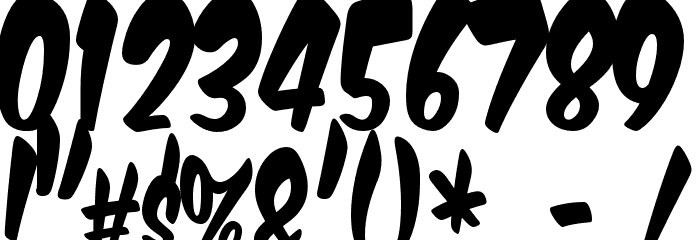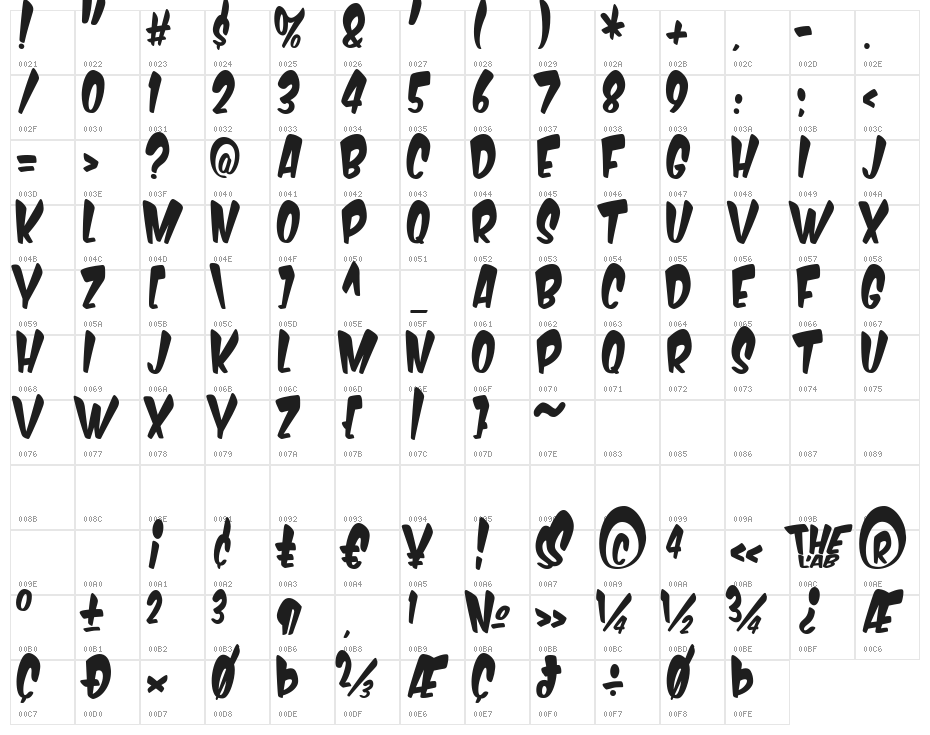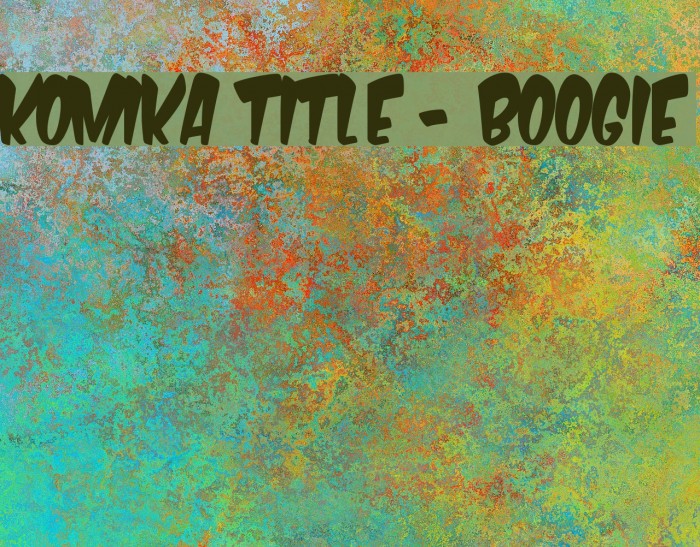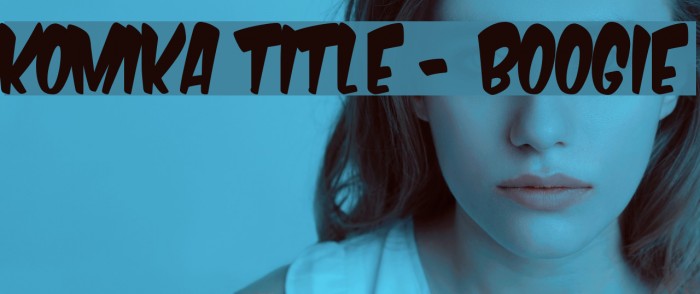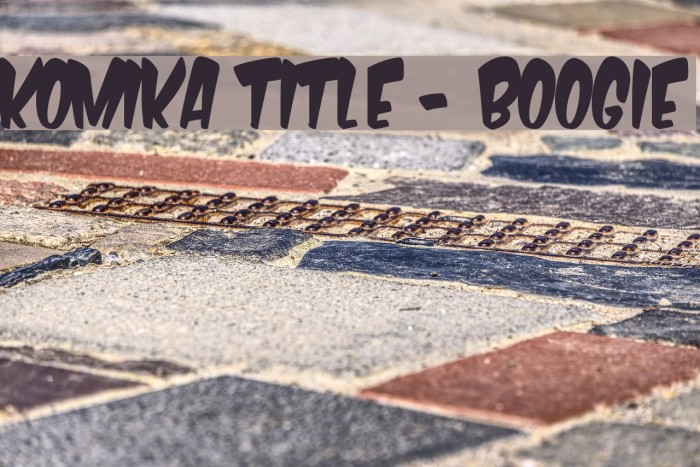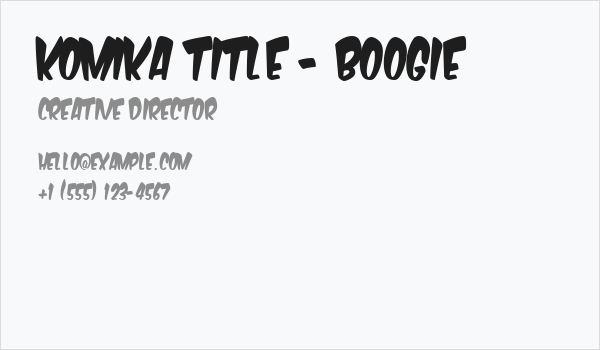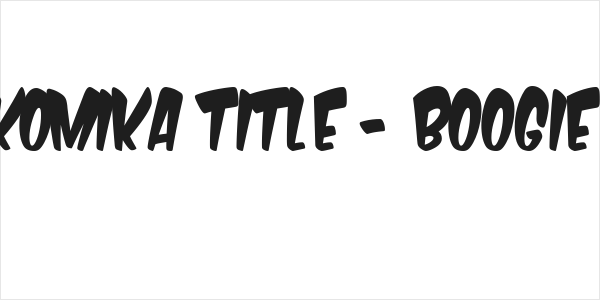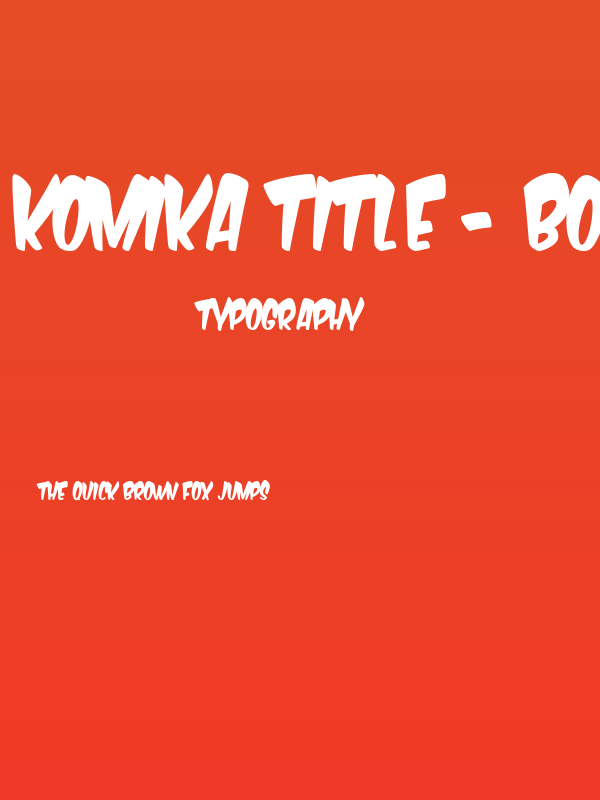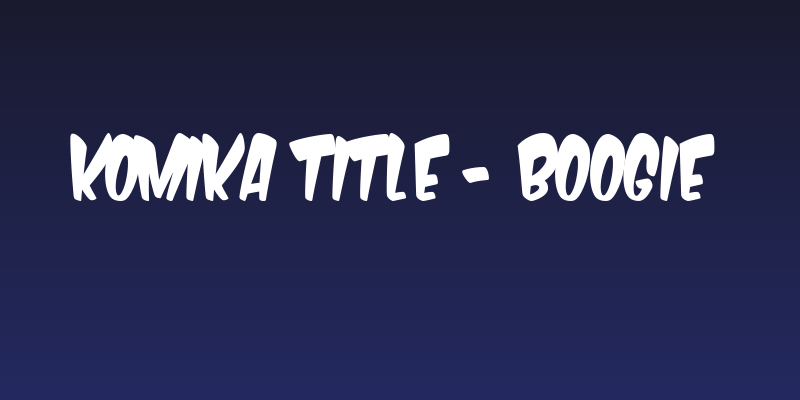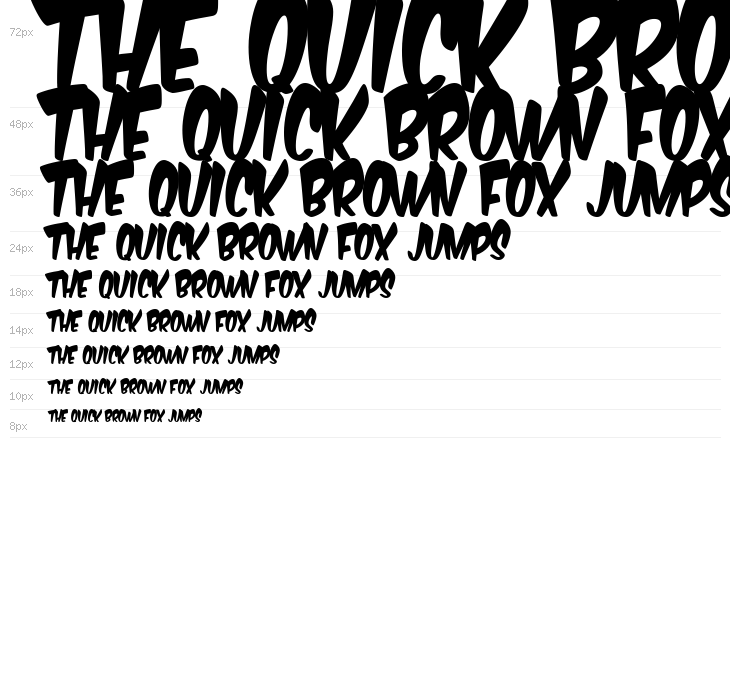
Komika Title - Boogie Font
Komika Title - Boogie Description
This font features a bold and playful style with exaggerated, rounded strokes that give it a lively and energetic appearance. The letters are thick and slightly slanted, adding a sense of motion and dynamism. The uppercase and lowercase characters maintain a consistent, cohesive look, while the numerals and special characters complement the overall design. The font's boldness and unique character shapes make it stand out, making it ideal for eye-catching designs.
Overall StylePlayful
Proposed ProjectsIdeal for comic books, children's books, playful branding, and eye-catching posters.